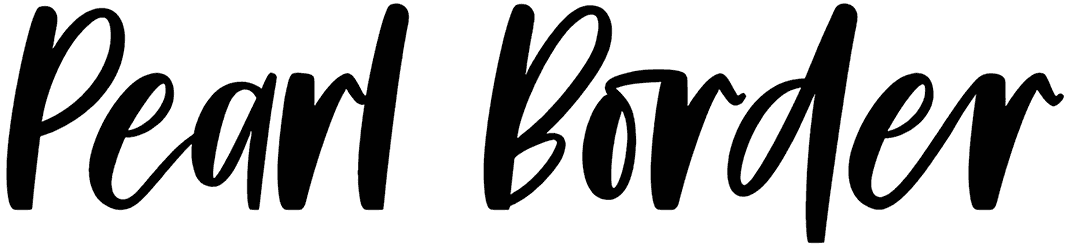
Pearl Border Font
Well, meet with a script font that stands eagerly to give any illustration a childish and dynamic aesthetic that any audience will praise and can communicate within a fraction of a second.